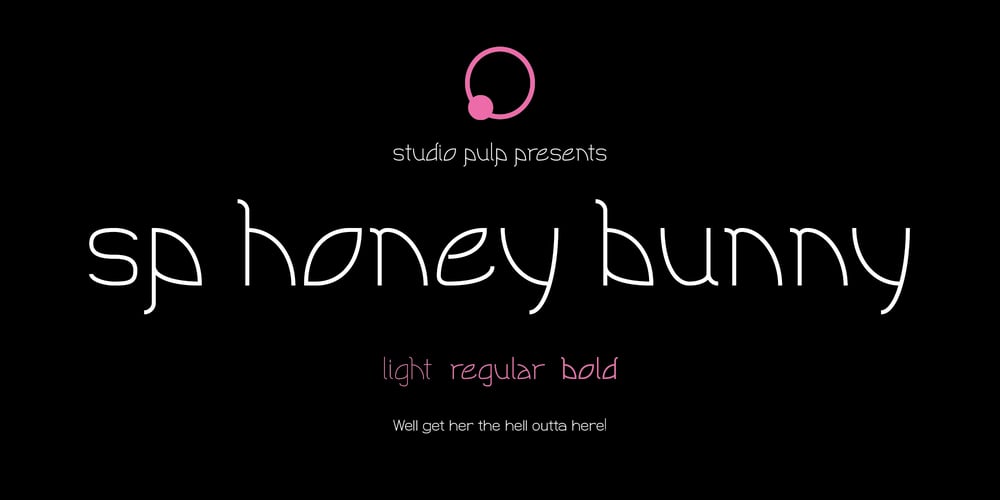
SP Honey Bunny
SP Honey Bunny font
SP Honey Bunny Font Family was designed by Roel Dierckens and published by Studio Pulp. SP Honey Bunny contains 3 styles and family package options. Discover the effective simplicity of SP Honey Bunny, a masterfully crafted display font created in 2023 by Studio Pulp. Inspired by the character Honey Bunny, the partner of Pumpkin in the cinematic classic “Pulp Fiction” (1996), this font, while not taking center stage, exudes a striking presence. This remarkable typeface, designed with meticulous attention to detail and craftsmanship, showcases versatility that seamlessly complements various design projects, particularly excelling in titles. The three well-balanced weights provide the freedom to unleash your creativity, while the clear, open forms optimize readability. SP Honey Bunny, anchored in a clean grid design, embodies modern minimalism and accessible elegance. Whether you’re working on web design, graphic design, or print materials, this font adds a touch of timeless class to your creations. Be inspired by the seamless blend of functionality and aesthetics in SP Honey Bunny. Specifically crafted to meet the demands of 2023, this font brings a contemporary flair to your projects while remaining true to Studio Pulp’s legacy of dedication to quality and innovation. Transform your typographic landscape with SP Jody and leave a lasting impression.